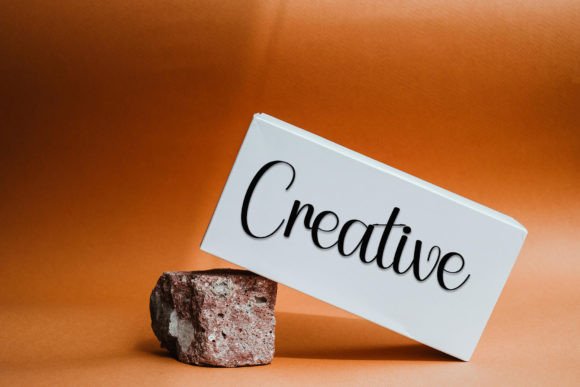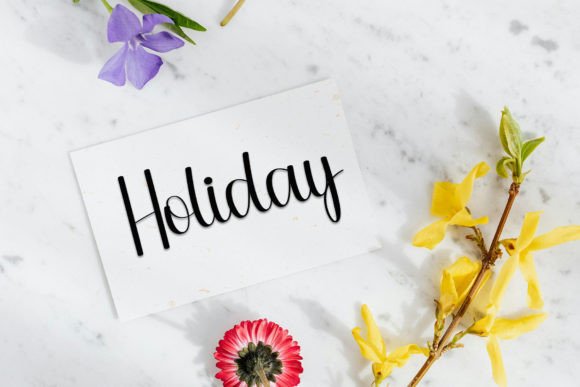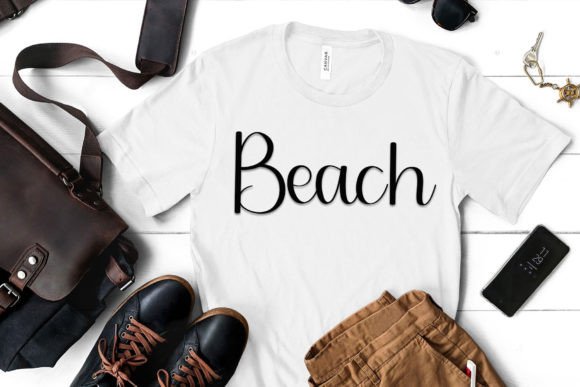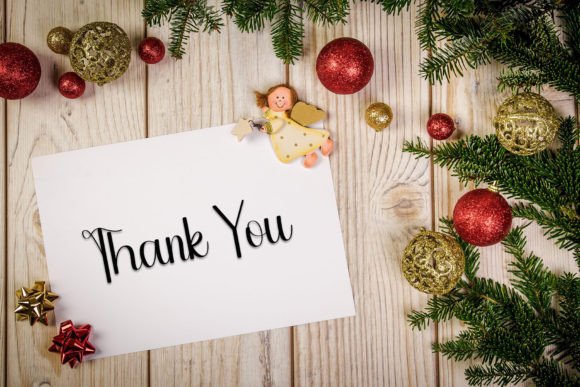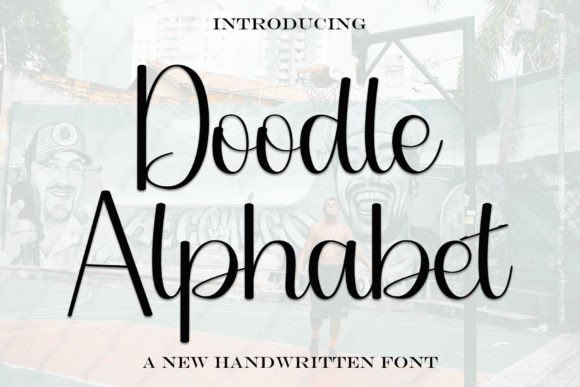
Doodle Alphabet Font: Elevate Your Designs with Elegance and Class
In the world of typography, few fonts manage to strike a balance between modernity and timeless elegance. Doodle Alphabet Font is one such exceptional typeface that brings a trendy, handwritten feel with a contemporary atmosphere and impeccable form, inspired by classic calligraphy. This versatile font is perfect for designers and crafters looking to add a touch of sophistication and class to their projects.
The Essence of Doodle Alphabet Font
Doodle Alphabet Font is more than just a typeface; it’s an expression of style and refinement. Its design draws inspiration from timeless classic calligraphy, yet it carries a modern twist that makes it highly adaptable to current design trends. Each letter is crafted with precision, featuring fluid lines and a harmonious balance of thick and thin strokes that give it a distinctive, hand-crafted feel.
Key Features of Doodle Alphabet Font
- Trendy and Handwritten: Despite being inspired by classic calligraphy, Doodle Alphabet Font boasts a contemporary vibe that makes it perfect for modern design projects.
- Elegance and Class: The font exudes elegance and sophistication, making it suitable for high-end branding, wedding designs, and luxury packaging.
- Versatility: Its clear and readable form makes it versatile for use in various design projects, from digital platforms to print materials.
- Impeccable Form: The font’s design ensures that it maintains clarity and readability, even at smaller sizes, making it ideal for a wide range of applications.
Applications of Doodle Alphabet Font
The versatility of Doodle Alphabet Font makes it a valuable addition to any designer’s toolkit. Here are some of the many ways you can use this elegant font:
- Branding and Logotypes: Create memorable and sophisticated brand identities with a font that stands out yet remains refined.
- Wedding and Event Design: Add a touch of elegance to wedding invitations, stationery, and event branding.
- Packaging Design: Elevate product packaging with a font that communicates luxury and quality.
- Digital and Print Media: Use it for website headers, social media graphics, posters, and flyers to give your content a classy look.
Doodle Alphabet Font is a stylish and versatile typeface that brings a touch of classic elegance to modern design projects. Its trendy yet timeless appeal makes it an excellent choice for designers and crafters aiming to create sophisticated and memorable designs. Whether you’re working on branding, packaging, or digital content, Doodle Alphabet Font is sure to elevate your work with its impeccable form and classy appearance.